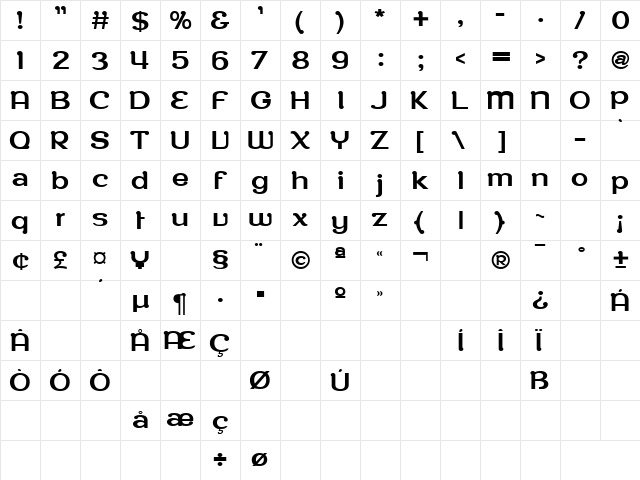
RoppongiNormal Regular Font Preview
RoppongiNormal Regular
Design Context for RoppongiNormal Typeface
RoppongiNormal is a composed and adaptable typeface that performs quietly and consistently across a wide range of design contexts.